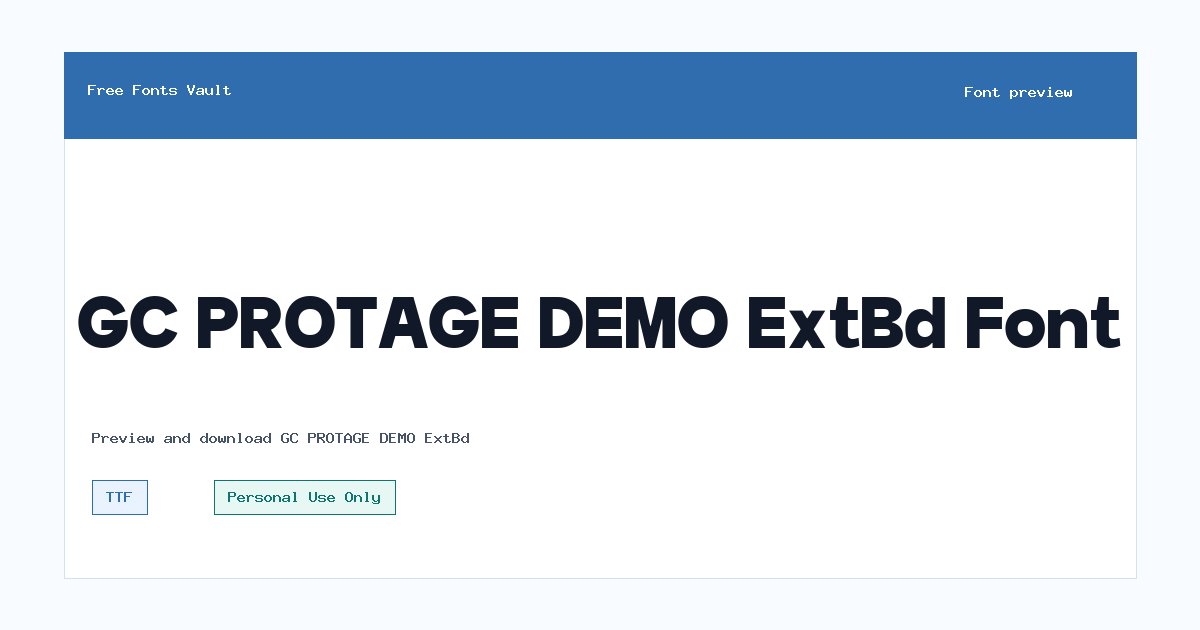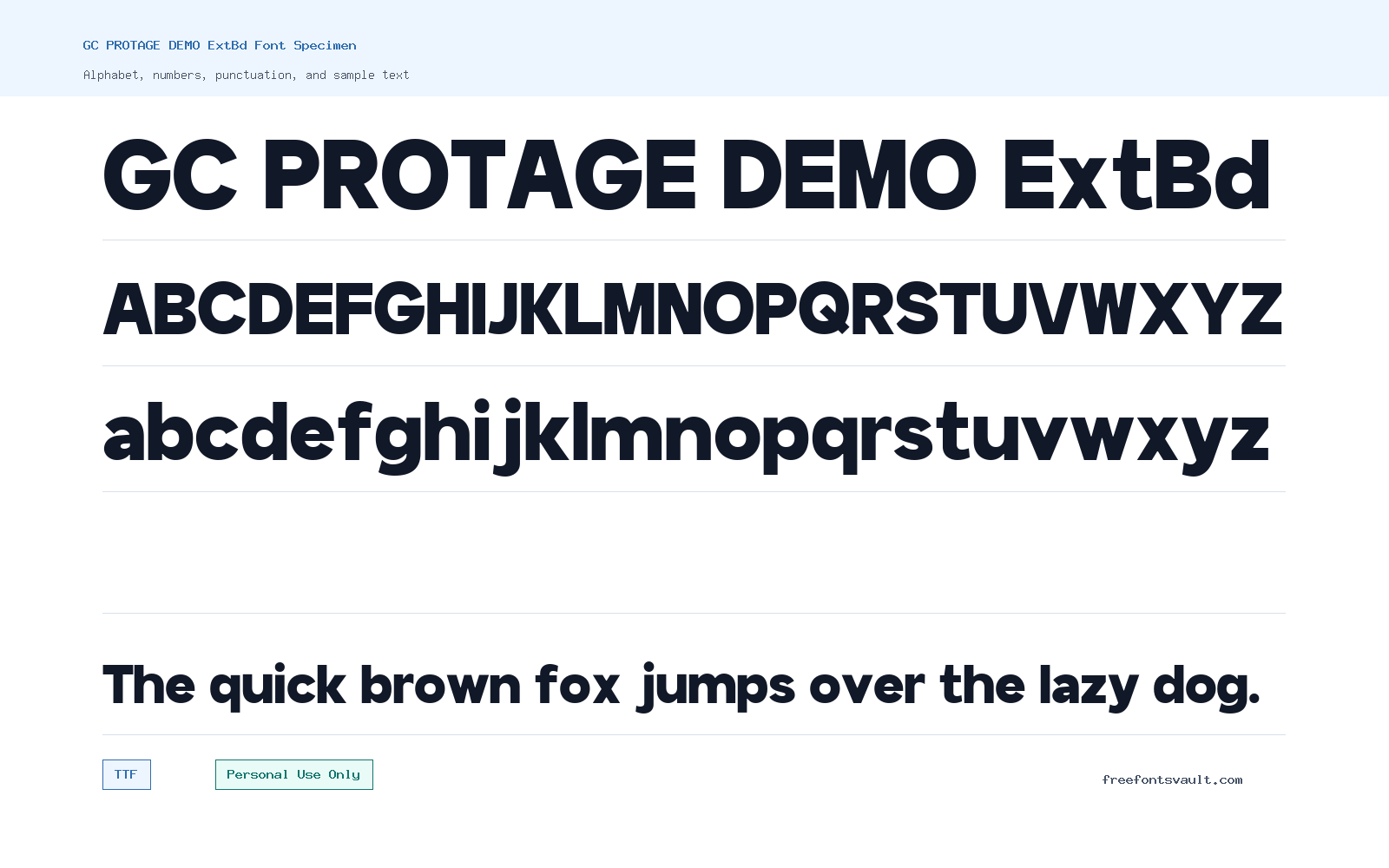
GC PROTAGE DEMO ExtBd
GC PROTAGE DEMO ExtBd font.
GC PROTAGE DEMO ExtBd is an extra-bold style from the GC Protage sans serif family. It is built for strong, compact display text where the words need to feel firm, modern, and easy to notice.
About GC PROTAGE DEMO ExtBd
GC PROTAGE DEMO ExtBd uses a heavy sans serif build with a normal upright style and a bold weight value of 700. The “ExtBd” name points to an extra-bold role, so it works best when you need emphasis rather than long reading text. Use it for short titles, poster lines, social graphics, thumbnails, label-style layouts, and other places where a thicker letter shape helps the message stand out. Because this is a demo/personal-use font, it is especially useful for testing a visual direction before deciding whether to license the full family for broader use.
In a design preview, start with short phrases instead of full paragraphs. Extra-bold sans serif fonts can look clean and confident at large sizes, but the same weight may feel crowded in small body copy or tight menu text. Try uppercase and title case, then adjust spacing if your design tool allows it. Give the letters enough room around the edges, especially in logos, banners, and square social posts. For pairing, keep the supporting font quieter: a regular-weight sans serif or a readable serif can balance the heavier GC PROTAGE DEMO ExtBd headline without competing with it.
- Extra-bold upright sans serif style with a strong display presence
- Part of the GC Protage family, with this weight serving as a heavier headline option
- Useful for short text where impact matters more than long-form readability
- Poster headlines and event graphics
- Social media title cards, thumbnails, and promo images
- Logo concept drafts and brand direction mockups
- Packaging mockups, labels, stickers, and bold typographic accents
- Website hero text or display sections when used sparingly
Use GC PROTAGE DEMO ExtBd for large, short text first. Test the font in the preview box with the exact words you plan to use, then check spacing, punctuation, numbers, and mixed-case text. If the layout starts to feel dense, increase tracking, reduce the number of words, or pair it with a lighter secondary font.
What kind of font is GC PROTAGE DEMO ExtBd?
GC PROTAGE DEMO ExtBd is an extra-bold sans serif display style from the GC Protage family. It is best suited for short, prominent text rather than long paragraphs.
What does ExtBd mean in the font name?
ExtBd commonly refers to Extra Bold. In this font page, it identifies the heavier GC Protage demo weight intended for strong display use.
Is GC PROTAGE DEMO ExtBd good for body text?
It is better for headlines, titles, and short display settings. For body text, pair it with a lighter, more readable font so the page stays comfortable to read.